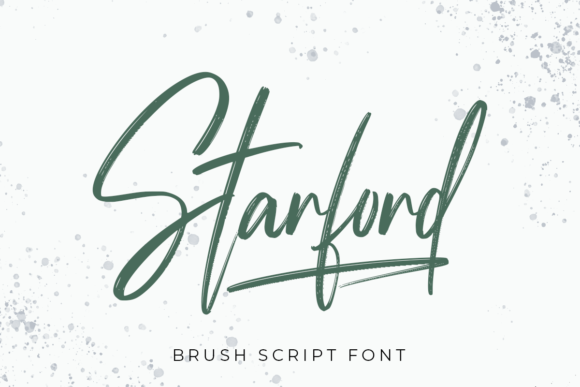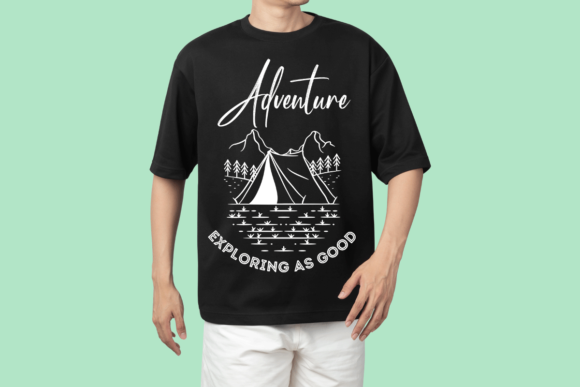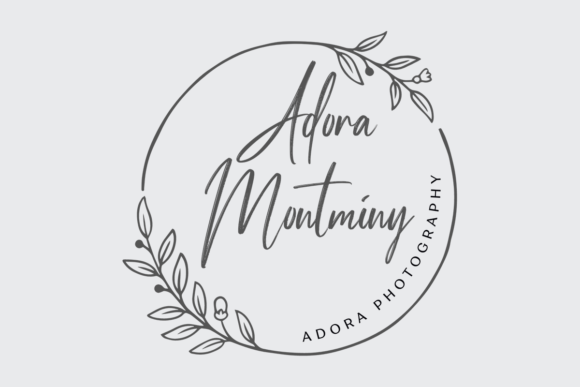
Starford Handwriting Brush Font
Starford is a lovely and brushed handwritten font. It is perfectly suited for all branding, quotes, poster, greeting card, business card, wedding invitations, logos, lettering or t-shirt design materials! This font is PUA encoded which means you can access all of the glyphs and swashes with ease.